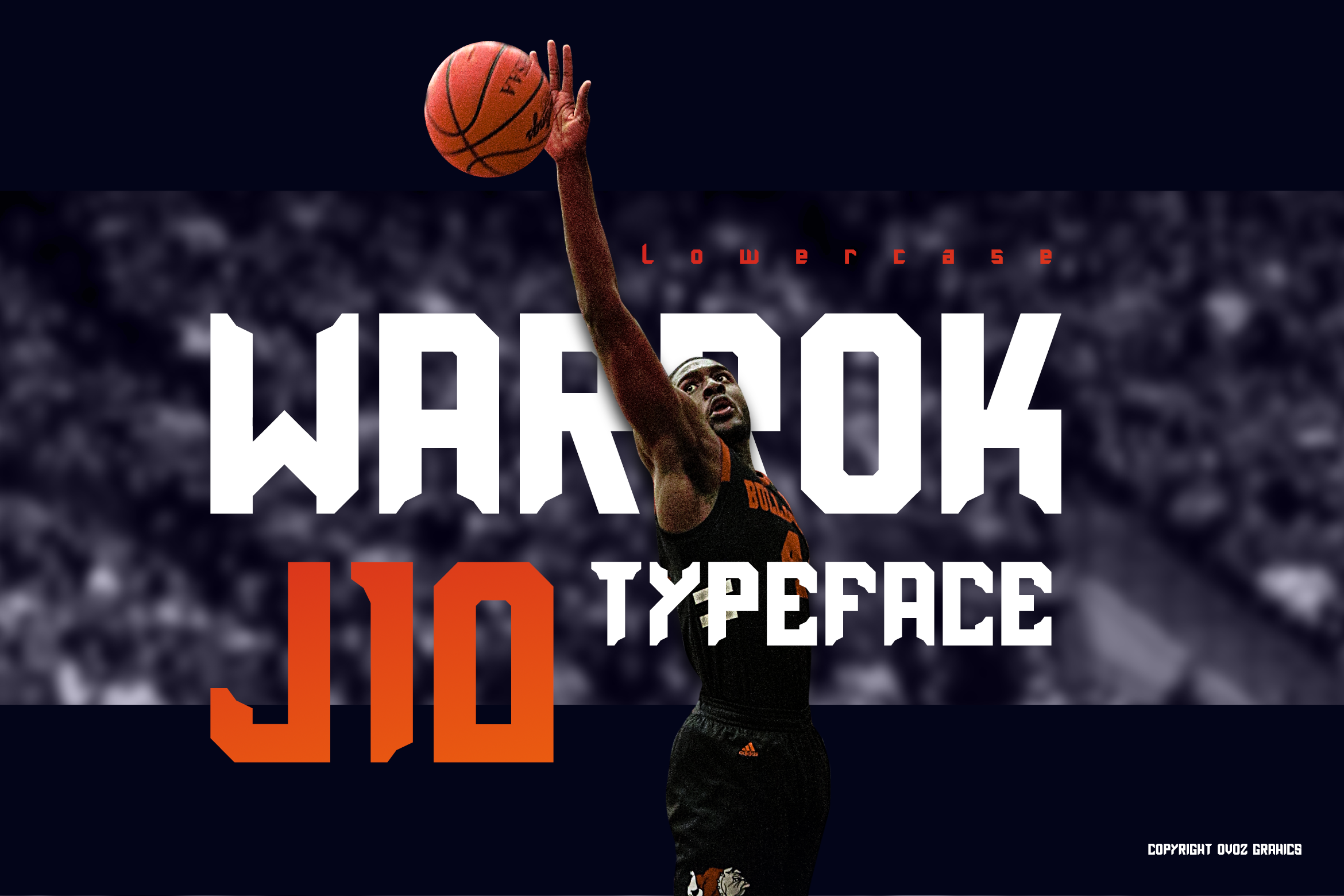
Warrok Display Font
Warrock Exclusive Display font, is our new item that suitable for your team logo, or community logo.
Great for Logo, Sticker, Jersey, Invitation Card, Brochure, etc.